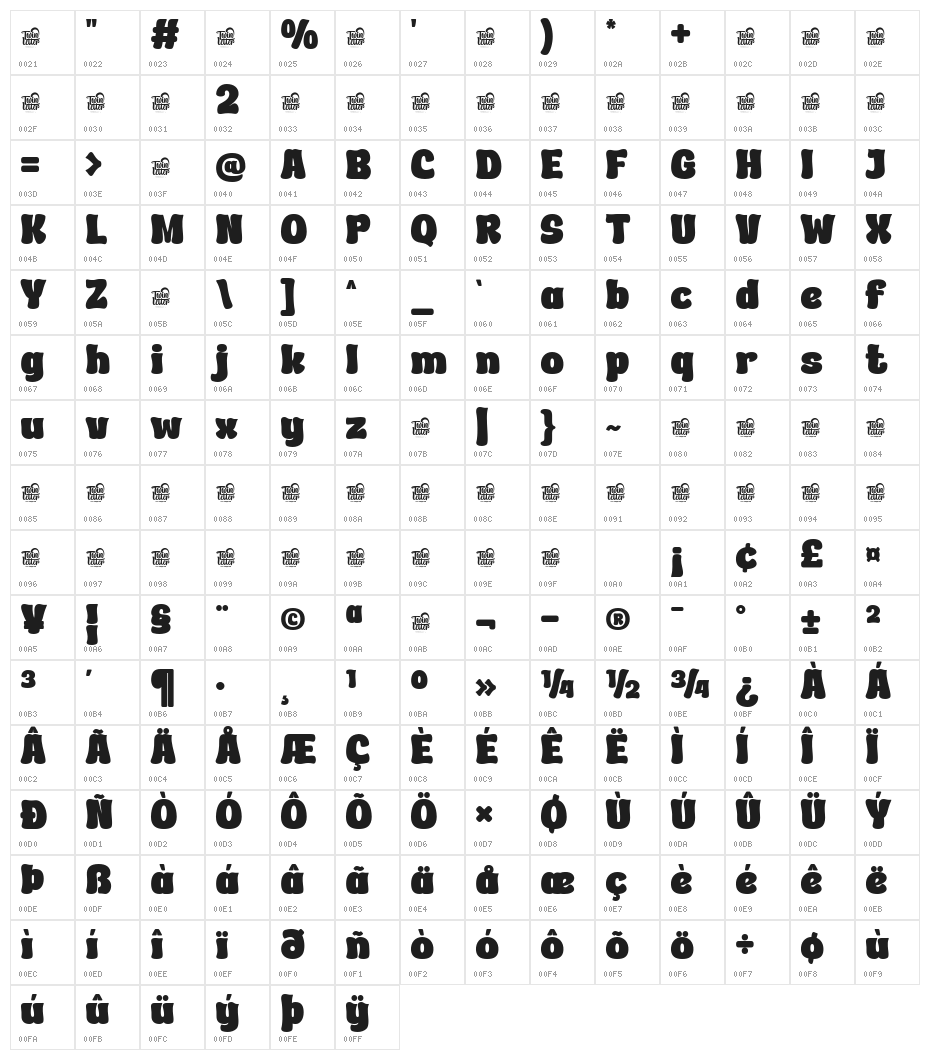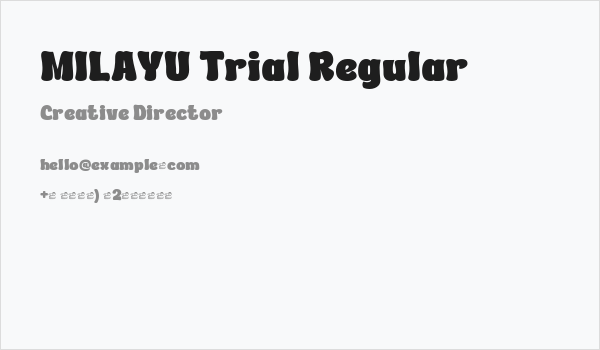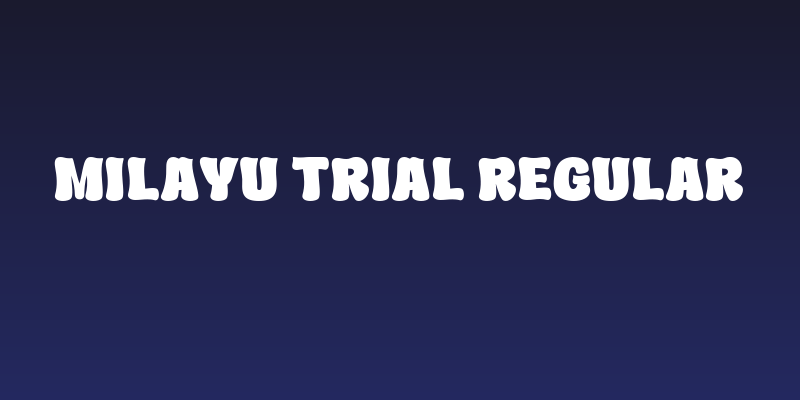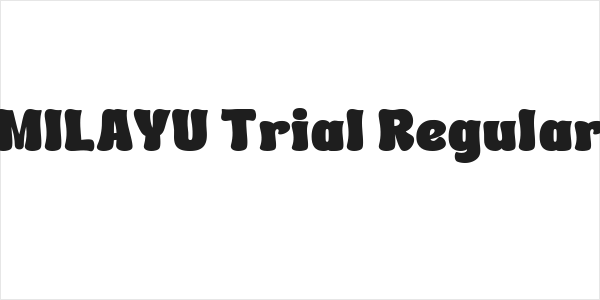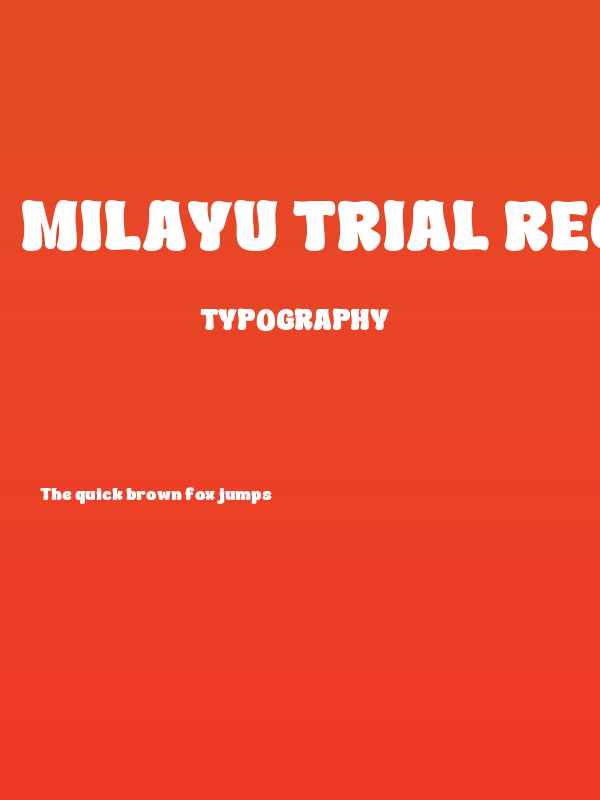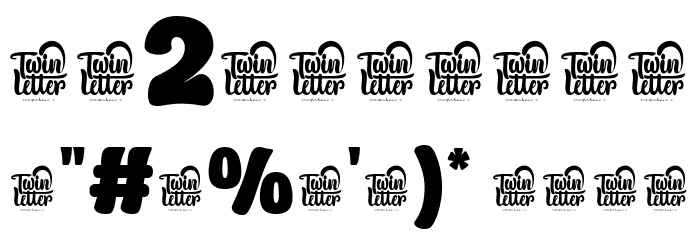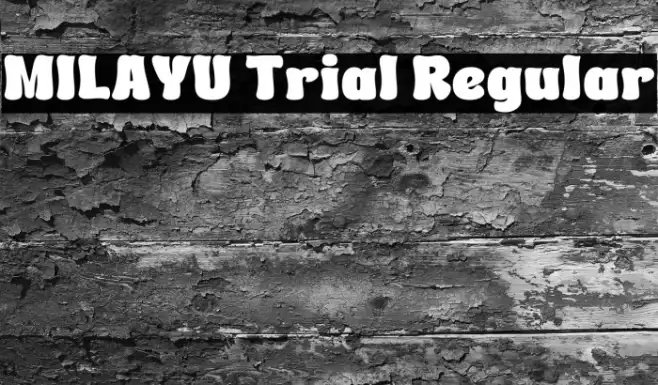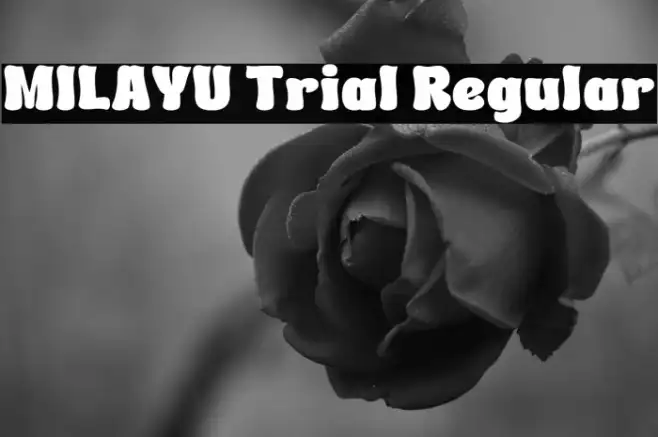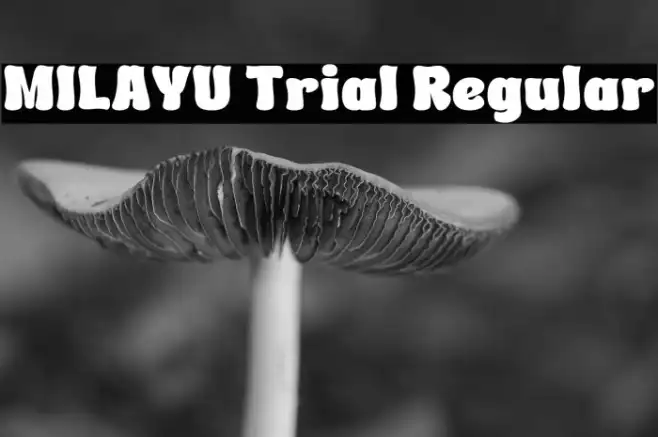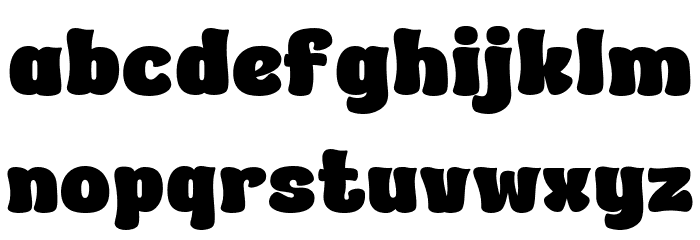
MILAYU Trial Regular Font
MILAYU Trial Regular Description
This font features a bold and playful design with rounded edges and a bubbly appearance. The characters are thick and have a whimsical, cartoon-like quality that makes them stand out. The uppercase and lowercase letters maintain a consistent style, with a slight variation in size and shape that adds to the font's charm. The numbers and special characters are equally bold and maintain the same playful aesthetic, making them perfect for attention-grabbing designs. The overall look is both fun and approachable, suitable for a variety of creative projects.
| Overall Style | Playful, Whimsical |
| Proposed Projects | Ideal for children's books, playful branding, posters, and creative advertising. |